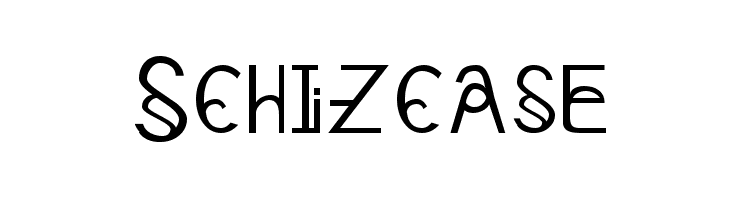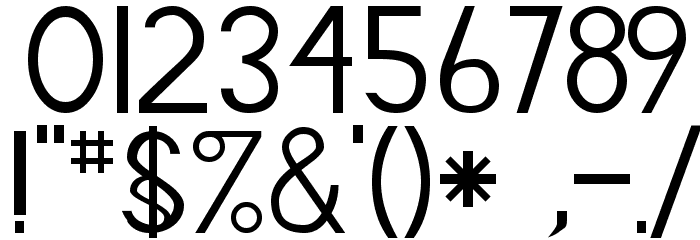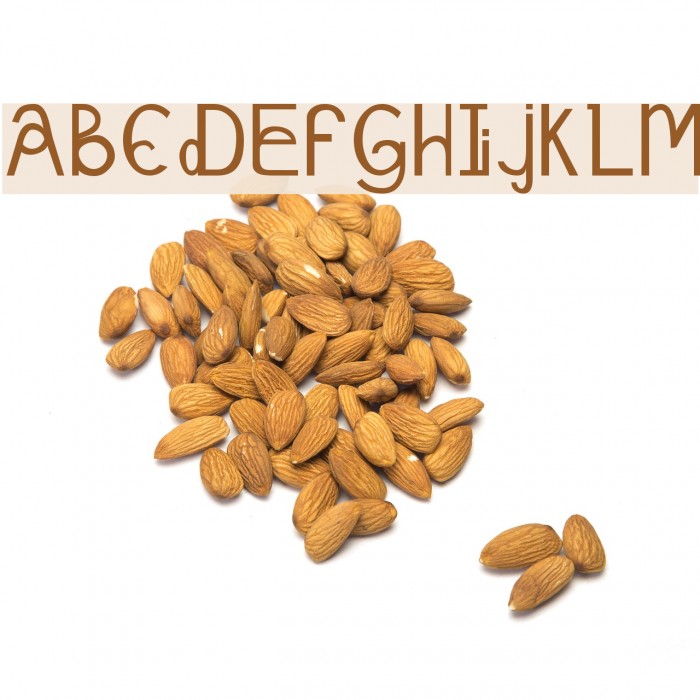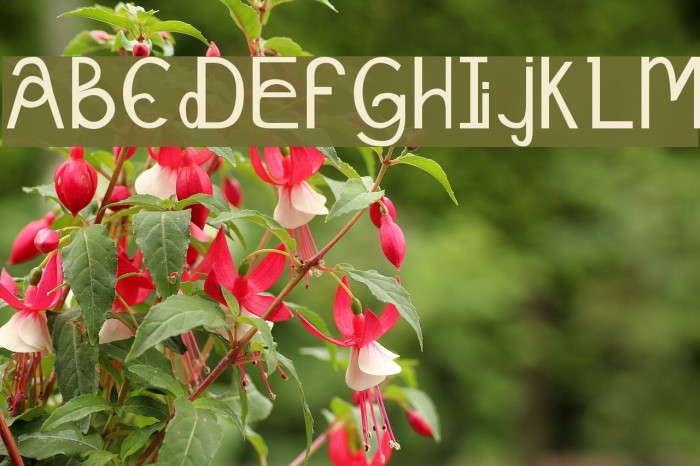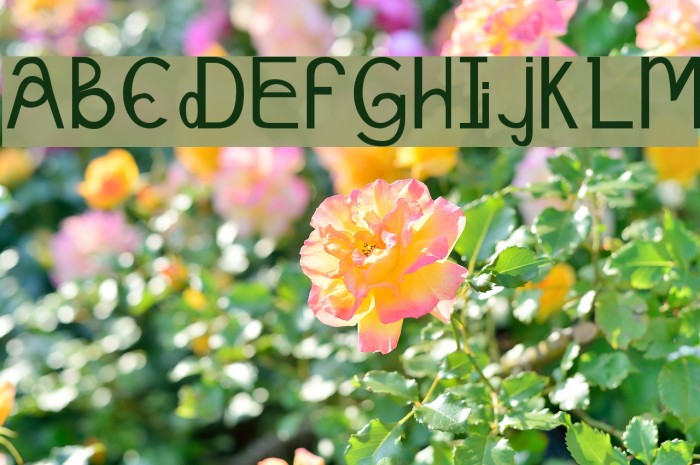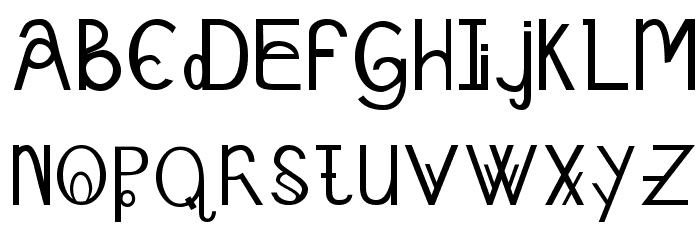
Schizcase Font
Schizcase Description
This font features a unique and playful design with a mix of geometric and whimsical elements. The uppercase letters have a distinctive style, with some characters incorporating unexpected curves and angles, giving them a quirky appearance. The lowercase letters maintain a similar playful aesthetic, with certain characters like 'g' and 'q' having loops and swirls that add to the font's charm. The numerals are bold and clear, ensuring readability while maintaining the overall playful theme. Special characters are creatively designed, with symbols like '&' and '%' having a decorative flair. This font is perfect for projects that require a fun and engaging look.
A playful and quirky font with geometric and whimsical elements from Kids fonts.
- Proposed Projects: Ideal for children's books, playful branding, creative posters, and whimsical invitations.
- Overall Style: Playful